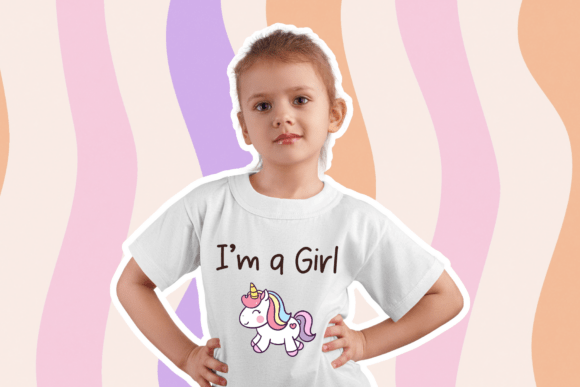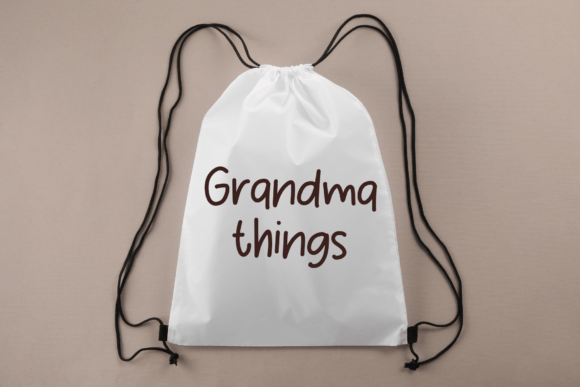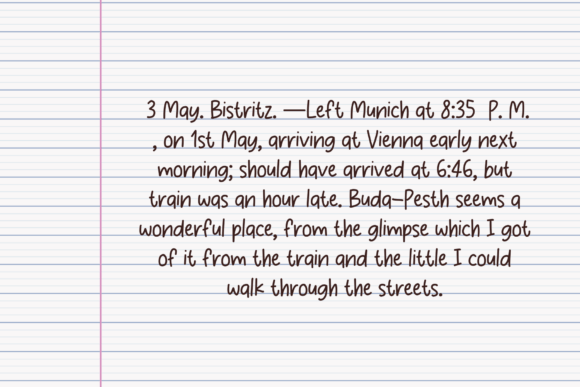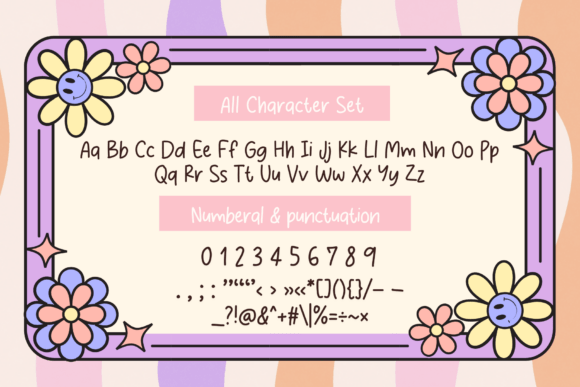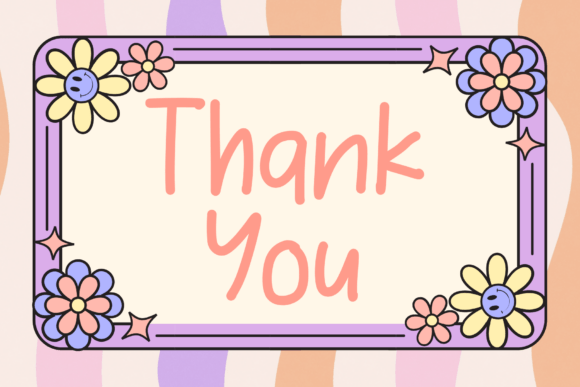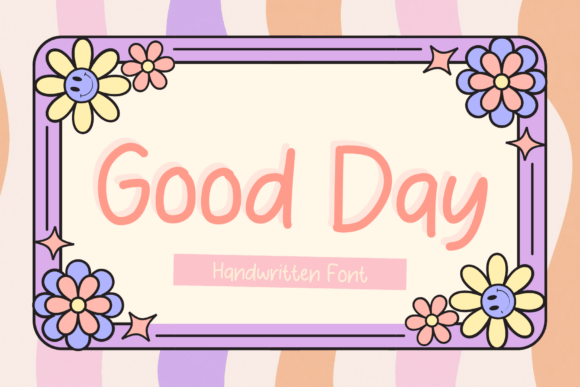
Introducing Good Day Font: The Perfect Handwritten Touch for Your Designs
Are you looking for a font that adds a personal touch to your designs? Look no further than Good Day Font! This beautiful handwritten font is designed to bring playfulness and authenticity to your projects, making it the perfect choice for designers and crafters alike.
What is Good Day Font?
Good Day Font is a carefully crafted handwritten font that embodies the spirit of playfulness and authenticity. Its unique and charming lettering style makes it an excellent addition to any design project. Whether you’re working on a blog post, logo, branding, ad, invitation, greeting card, planner, photo album, decoration, or any other creative project, Good Day Font is the perfect choice.
Key Features of Good Day Font
- Handwritten style: Good Day Font boasts a beautiful, handwritten style that adds a personal touch to your designs.
- Playful and authentic: The font’s playful and authentic vibe makes it perfect for a wide range of projects, from casual blog posts to professional branding materials.
- Versatile: Good Day Font can be used for various design projects, including logos, ads, invitations, greeting cards, planners, photo albums, decorations, and more.
Why Choose Good Day Font?
There are many reasons why Good Day Font stands out from the crowd. Here are a few:
- Unique style: Good Day Font offers a unique and distinctive style that will set your designs apart from others.
- Emotional connection: The font’s handwritten style creates an emotional connection with your audience, making your designs more relatable and engaging.
How to Use Good Day Font
Using Good Day Font is easy! Here are some tips to get you started:
- Pair it with other fonts: Good Day Font pairs well with other fonts, so feel free to experiment with different combinations.
- Experiment with colors: The font looks great in various colors, so don’t be afraid to try out different hues and shades.
- Use it for headings and titles: Good Day Font is perfect for headings and titles, adding a touch of personality to your designs.
- Try it for body text: You can also use Good Day Font for body text, creating a cohesive and visually appealing design.
Design Ideas with Good Day Font
Good Day Font is an incredibly versatile font that can be used for a wide range of design projects. Here are some ideas to get you started:
- Blog posts: Add a personal touch to your blog posts with Good Day Font.
- Logos and branding: Create a unique and memorable logo with Good Day Font.
- Ads and marketing materials: Use Good Day Font to create eye-catching ads and marketing materials.
- Invitations and greeting cards: Add a touch of personality to your invitations and greeting cards with Good Day Font.
- Planners and journals: Create a beautiful and functional planner or journal with Good Day Font.
- Photo albums and scrapbooking: Use Good Day Font to add a personal touch to your photo albums and scrapbooking projects.
- Decorations and crafts: Good Day Font can also be used for decorations and crafts, such as making signs, banners, and other DIY projects.
Good Day Font is a beautiful and versatile handwritten font that is perfect for designers and crafters alike. Its playful and authentic style makes it an excellent addition to any design project, from blog posts and logos to invitations and decorations. With its ease of use and high-quality design, Good Day Font is a must-have for anyone looking to add a personal touch to their designs.